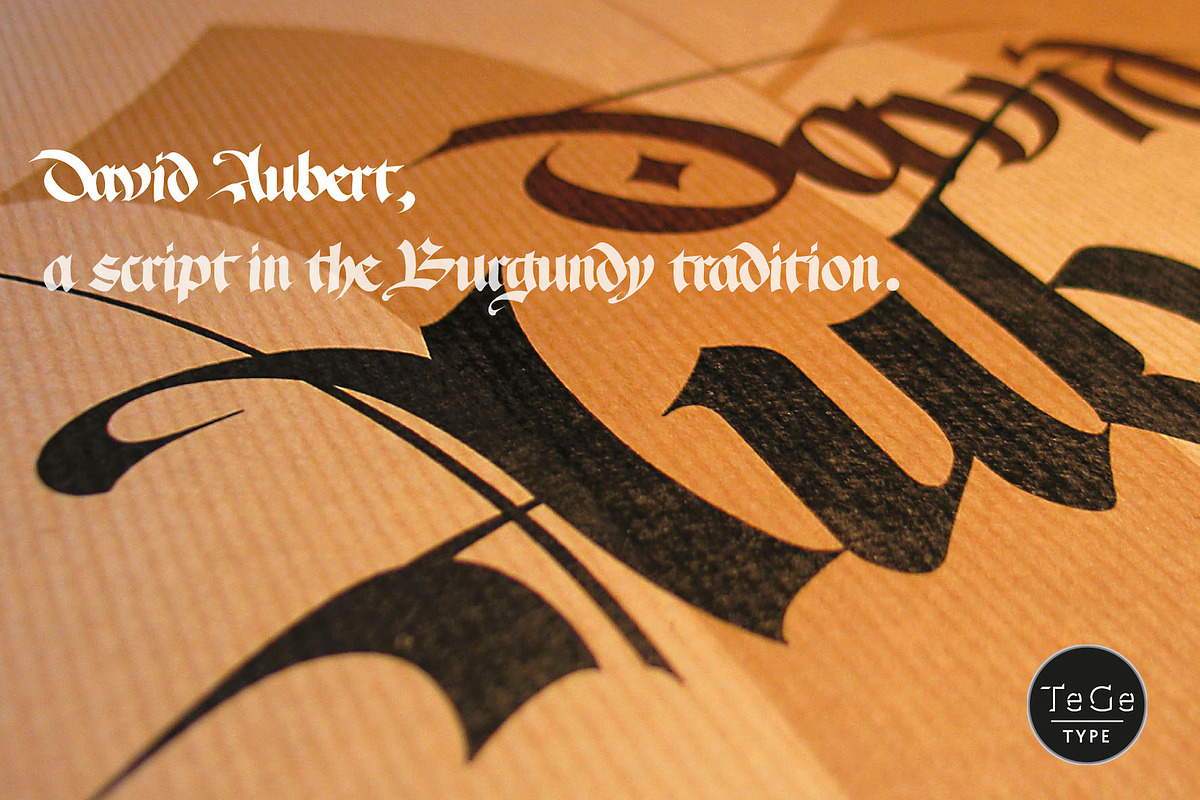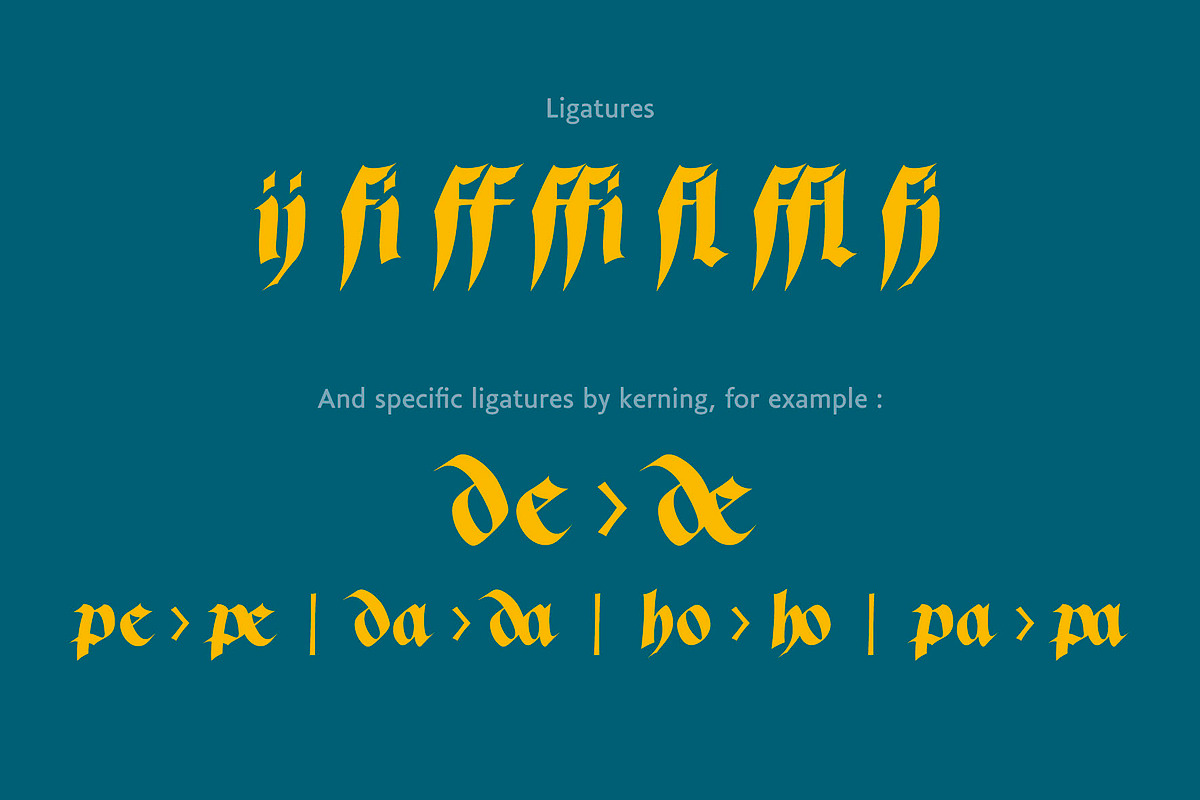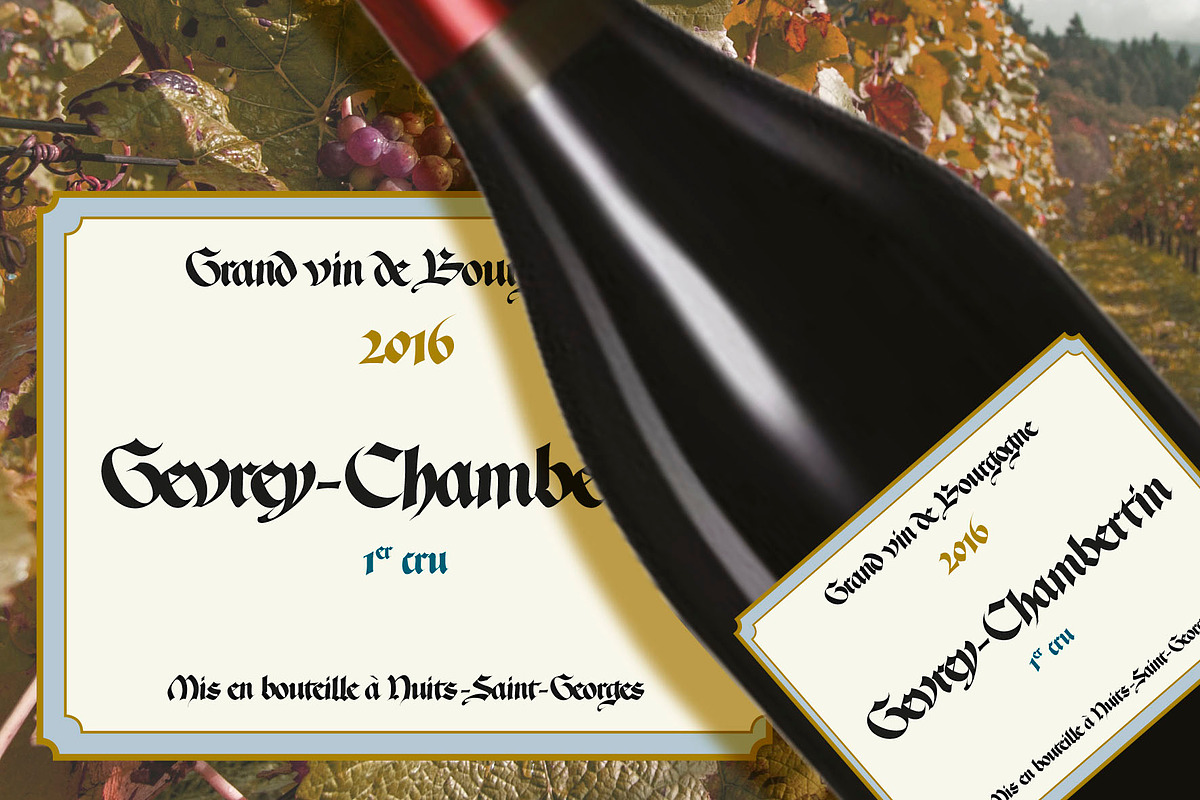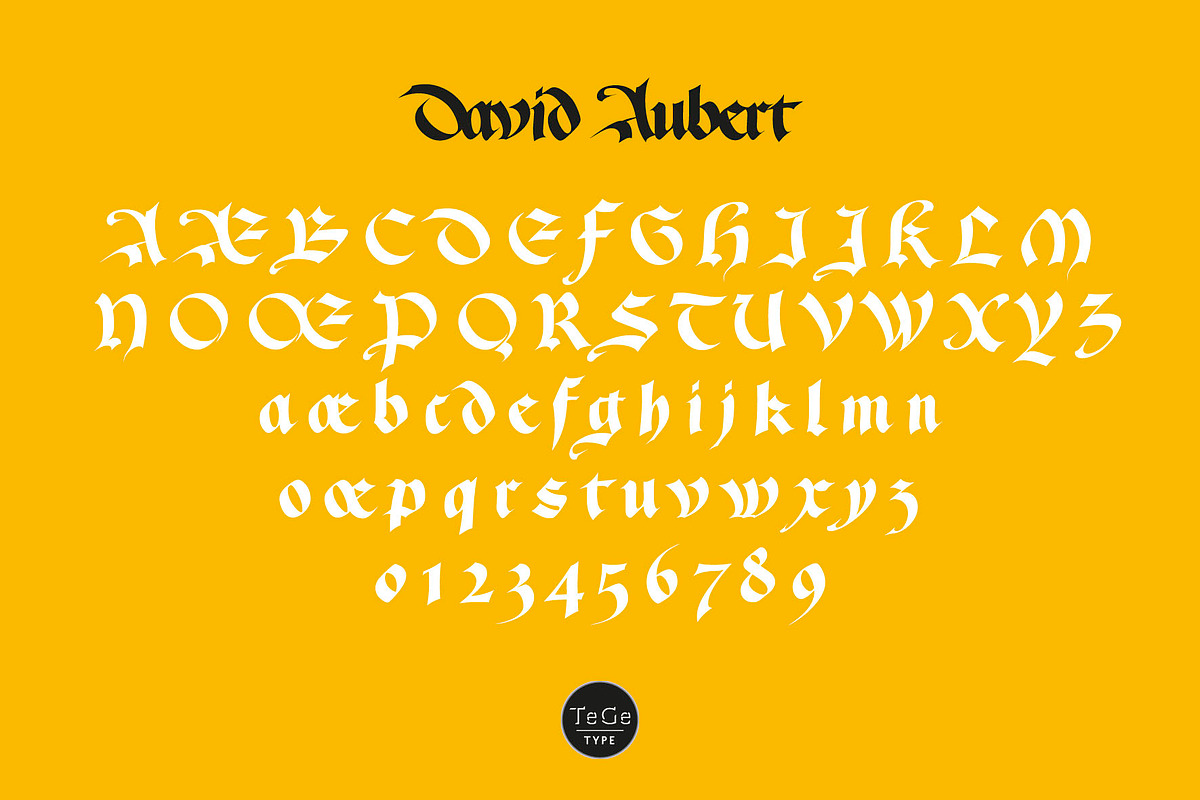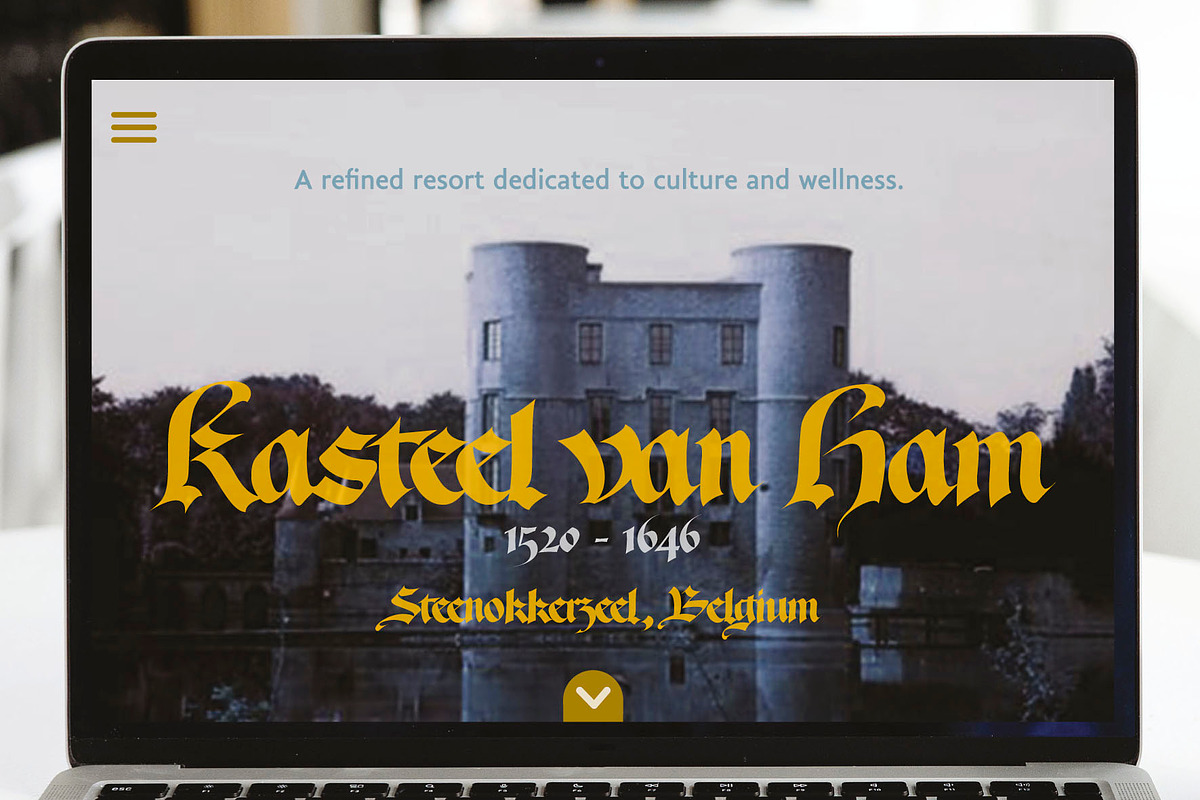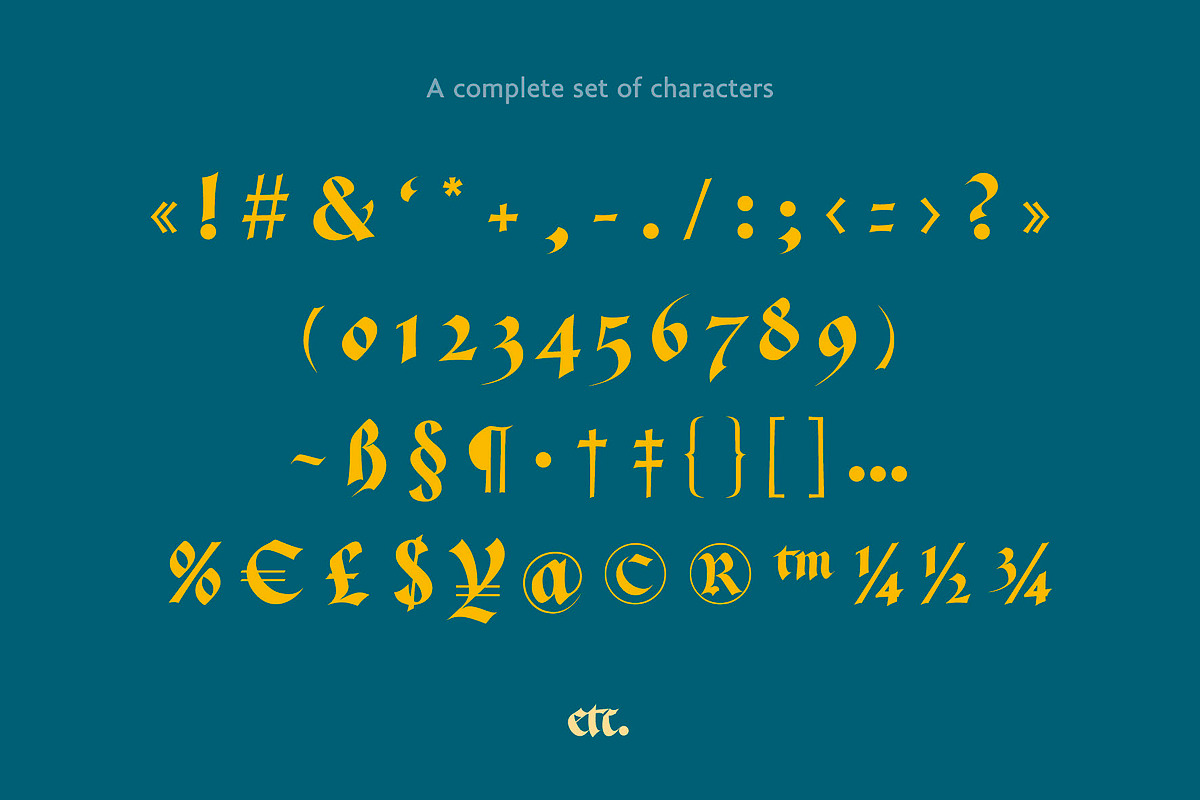
David Aubert
The name of this typeface, David Aubert, comes from the calligrapher of Philippe Le Bon and Charles Le Téméraire, both Dukes of Burgundy who worked and lived in Brussels in the 1500s.
This revival of his writing is a good example of the "bâtarde bourguignonne" style.